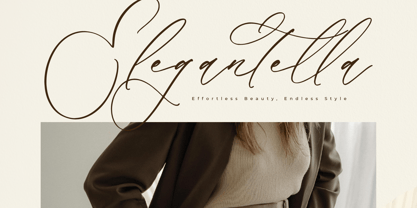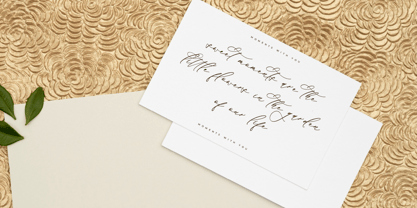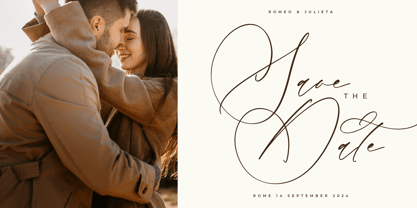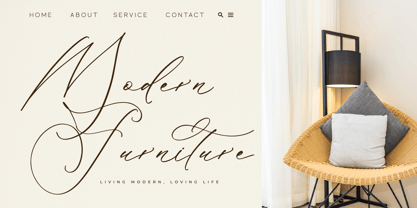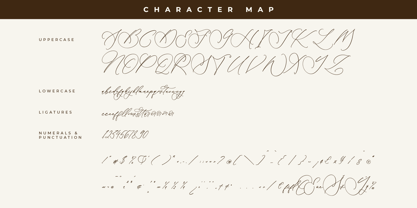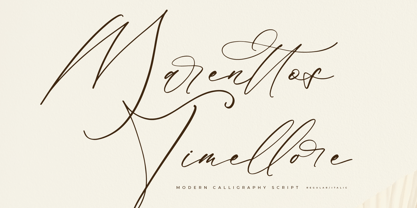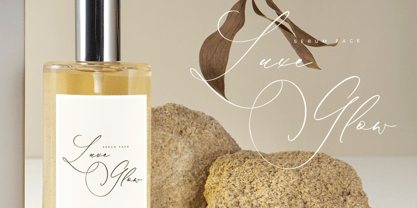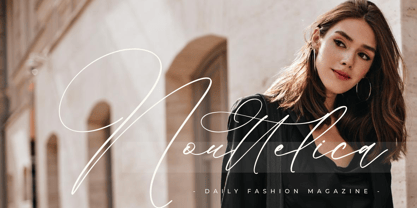
Marenttos Timellore
The Marenttos Timellore Font Family was designed by Heru Utama Putra and published by Letterena Studios. Marenttos Timellore contains 2 styles and family package options. More about this family
Marenttos Timellore – Modern Calligraphy Script , from Letterena, is a Luxury Script font, suitable for any projects such as: logos, branding projects, homeware designs, product packaging, mugs, quotes, posters, shopping bags, t-shirts, book covers, name card, invitation cards, greeting cards, label, photography, watermark, special events, and all your other luxury and beautiful projects that need a Luxury serif taste.